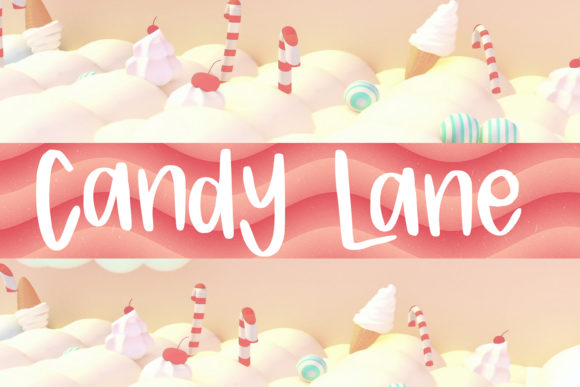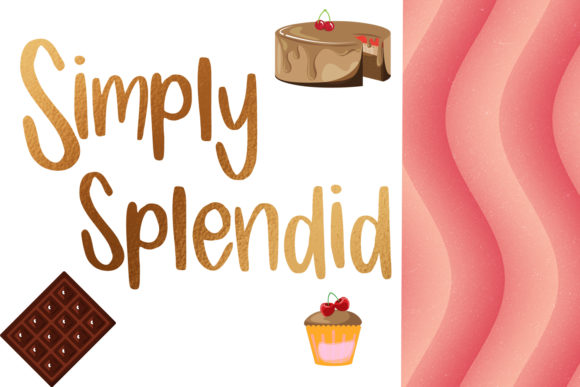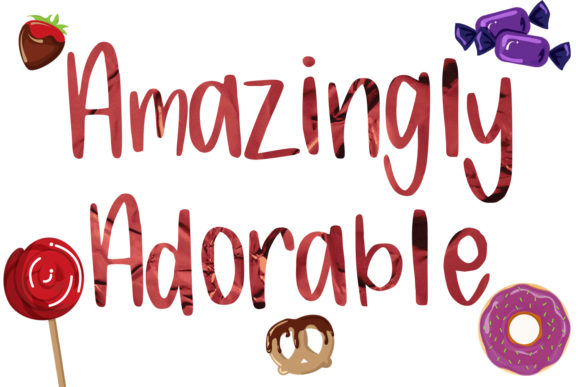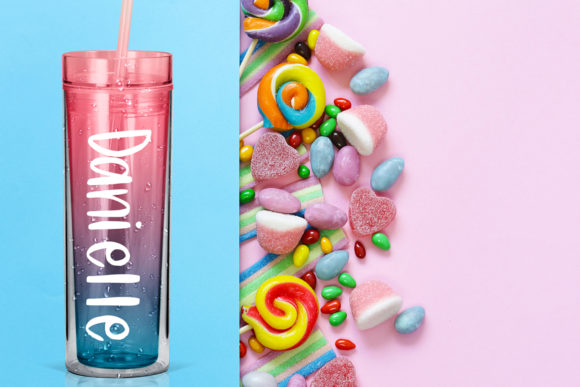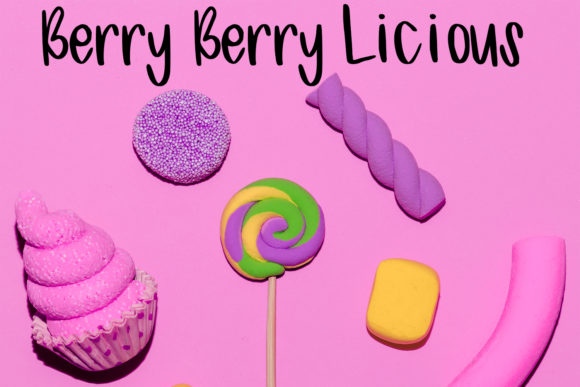
Candy Lane Font
About Candy Lane Font
Take a stroll down Candy Lane with this iconic typeface of the same name. It’s sweet, deliciously whimsical and simply the perfect crafting font!